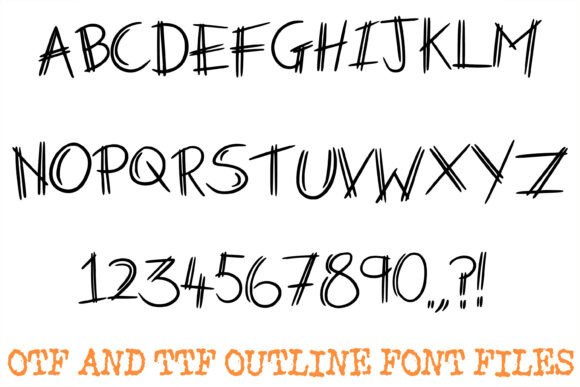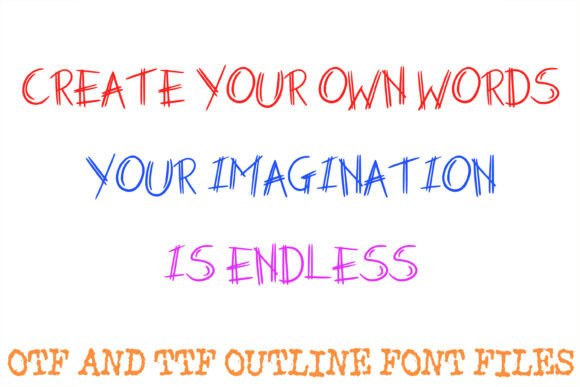
The Double Sketch Font: A Masterpiece of Hand-Drawn Elegance
In the world of typography, few fonts capture the essence of hand-drawn elegance as effortlessly as the Double Sketch Font. This light, artistic display typeface is a game-changer for designers seeking to infuse their projects with a touch of organic sophistication. With its unique twin-line construction and delicate, parallel strokes, the Double Sketch Font is the perfect choice for a wide range of creative endeavors.
The Inspiration Behind the Double Sketch Font
The Double Sketch Font is designed to mimic the look of a rapid hand-drawn draft, evoking the feeling of a “work-in-progress.” Every character is crafted to resemble the imperfect, yet charming lines of a fine-point pen, giving the font a distinctly human touch. This raw, unpolished energy is precisely what sets the Double Sketch Font apart from more traditional typefaces, making it an excellent choice for designers looking to add a personal touch to their work.
Key Features of the Double Sketch Font
- Unique Twin-Line Construction: The Double Sketch Font features a distinctive twin-line design that gives it a hand-drawn, sketch-like quality.
- Delicate, Parallel Strokes: The font’s delicate strokes are characterized by a subtle parallelism, adding to its organic, hand-crafted feel.
- Organic Imperfections: The Double Sketch Font includes a range of organic imperfections that enhance its hand-drawn aesthetic, making each character feel unique.
- Light, Artistic Display: This font is designed for display purposes, offering a light, airy feel that elevates any design.
Ideal Uses for the Double Sketch Font
The Double Sketch Font’s versatility makes it suitable for a variety of design projects. Here are some of the best ways to utilize this elegant typeface:
- Architectural Sketches: The font’s sketch-like quality makes it perfect for architectural renderings, drafts, and presentation materials.
- Creative Planning Journals: Add a touch of elegance to your journal or planner with the Double Sketch Font, ideal for headers, titles, and decorative elements.
- Minimal Branding: For brands aiming for a sophisticated, minimalist aesthetic, this font offers a modern yet approachable look.
- Sophisticated Social Media Overlays: Elevate your social media graphics with the Double Sketch Font, perfect for overlays, quotes, and promotional materials.
- Interior Design Firm Branding: Create a professional and stylish identity for your interior design firm with this elegant font.
- Boutique Event Stationery: Use the Double Sketch Font to craft beautiful, hand-crafted stationery for weddings, galas, and other high-end events.
Why Choose the Double Sketch Font?
In a world where digital designs often feel sterile and impersonal, the Double Sketch Font offers a refreshing alternative. Its hand-drawn aesthetic brings a level of warmth and authenticity to any project, making it an invaluable tool for designers. Here are a few reasons why the Double Sketch Font stands out:
- Handcrafted Aesthetic: The font’s hand-drawn lines and organic imperfections give it a unique, crafted look.
- Professional yet Approachable: The Double Sketch Font strikes the perfect balance between professionalism and approachability, making it suitable for a wide range of applications.
- Modern Relevance: Despite its hand-drawn inspiration, the font feels distinctly modern, ensuring it will complement contemporary designs.
The Double Sketch Font is more than just a typeface—it’s a design statement. With its unique twin-line construction, delicate strokes, and organic imperfections, it brings a touch of hand-drawn elegance to any project. Whether you’re working on architectural sketches, branding, or elegant stationery, this font provides a professional yet approachable aesthetic that’s sure to impress. Embrace the Double Sketch Font in your next design endeavor and experience the beauty of hand-crafted typography.
Getting Started with the Double Sketch Font
Ready to incorporate the Double Sketch Font into your design workflow? Here are some tips to get you started:
- Experiment with Sizes: Play around with different font sizes to see how the Double Sketch Font scales, from delicate headers to larger display pieces.
- Combine with Other Fonts: Try pairing the Double Sketch Font with complementary typefaces to create visual interest and hierarchy in your designs.
- Explore Digital and Print Applications: Use the font in both digital formats, such as social media graphics and website headers, and in print materials like brochures and posters.
With the Double Sketch Font, you’re not just choosing a typeface—you’re embracing a design philosophy that values handcrafted beauty and authenticity. Whether you’re a seasoned designer or a creative hobbyist, this font is sure to inspire and elevate your work.